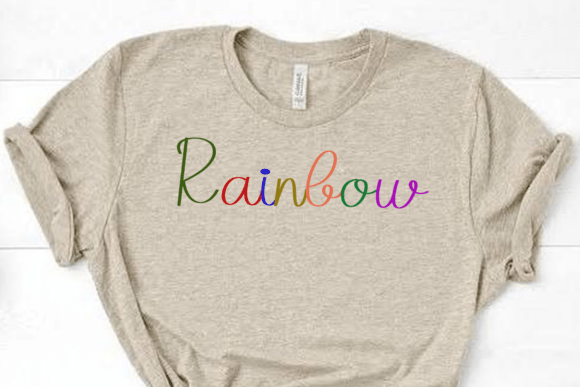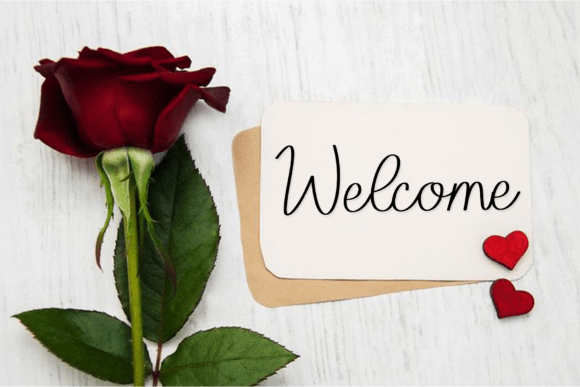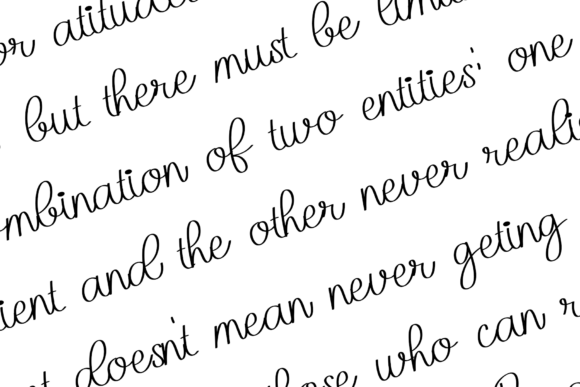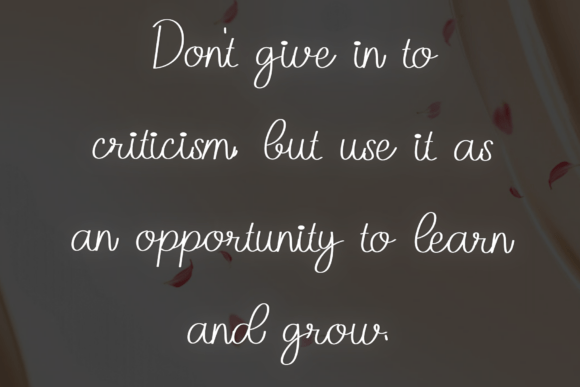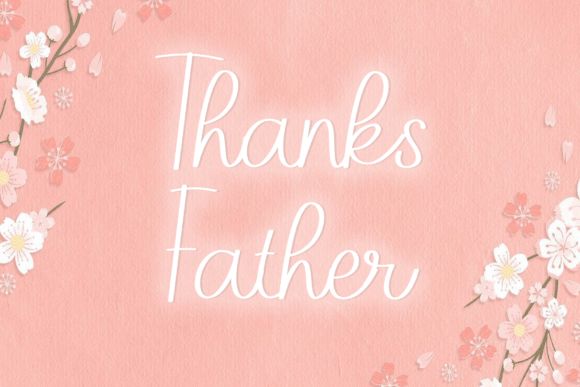
The Perfect Autumnal Typography: Unveiling the Beauty of Beauty Parlours Font
As the leaves start to change colors and the crisp air sets in, I find myself getting inspired by the cozy atmosphere of autumn. There’s something about the season that sparks creativity, from the warm hues of golden light to the rich textures of fallen leaves. And, of course, the perfect typography to match this mood – enter the Beauty Parlours Font.
This sophisticated script font is designed to evoke the feeling of high-end inkwork, with its vertically elongated letterforms and delicate hairline connectors. It’s a game-changer for designers looking to add a touch of autumnal elegance to their projects, whether it’s a seasonal marketing campaign or a bespoke invitation for a boutique event.
With Beauty Parlours Font, you can add a unique and professional visual voice to your designs, making it a valuable asset for any creative project. Whether you’re a seasoned designer or just starting out, this font is sure to elevate your work and leave a lasting impression.
Key Features of Beauty Parlours Font
- Unique Characteristics: Beauty Parlours Font features a unique blend of elegant and modern design elements, making it perfect for beauty and wellness-related branding, advertising, and packaging.
- Script and Regular Styles: This font family includes both script and regular styles, offering users a versatile range of options to suit their design needs.
- High-Quality Typography: Beauty Parlours Font is designed with high-quality typography in mind, ensuring that every character is meticulously crafted for optimal readability and visual appeal.
- Professional and Elegant: This font family exudes a sense of professionalism and elegance, making it an ideal choice for beauty parlours, spas, salons, and other related businesses.
Beauty Parlours Font Review
Overall, I’d say the Beauty Parlours Font is a decent choice for your beauty or wellness-related projects. It has its strengths and weaknesses, which I’ll outline below.
- The font’s playful and elegant design makes it perfect for beauty or wellness-related businesses.
- The bold weight is great for headings, while the light weight is suitable for body text.
- The font is highly legible, making it easy to read even in smaller sizes.
Limitsations ⚠️
- The font’s limited character set might not be suitable for longer texts or paragraphs.
- The font’s design may not be ideal for modern or minimalist designs, as it has a more classic feel.
- The font is not fully compatible with some older systems or software, which may cause display issues.
In conclusion, the Beauty Parlours Font is a solid choice for beauty or wellness-related projects. While it has its limitations, its strengths make it a great option for those looking for a playful yet elegant font. However, it may not be the best choice for modern or minimalist designs, or for longer texts.
Getting the Most Out of the Beauty Parlours Font
To get the most out of the Beauty Parlours font, try the following tips:
- Use it in combination with bold or italic styles to add emphasis to your text.
- Experiment with different font sizes to create a visually appealing hierarchy of text.
- Use it in conjunction with other design elements, such as images and colors, to create a cohesive and engaging design.
The Beauty Parlours font is ideal for:
- Beauty and wellness branding
- Spa and
Alternatives to Beauty Parlours Font
Playfair Display is an elegant, high-end serif font that can be used for titles, headings, and other display purposes. It’s ideal for creating a luxurious and sophisticated look. Compared to Beauty Parlours Font, Playfair Display has a more refined and classic feel, making it suitable for high-end branding, magazines, and fashion designs.